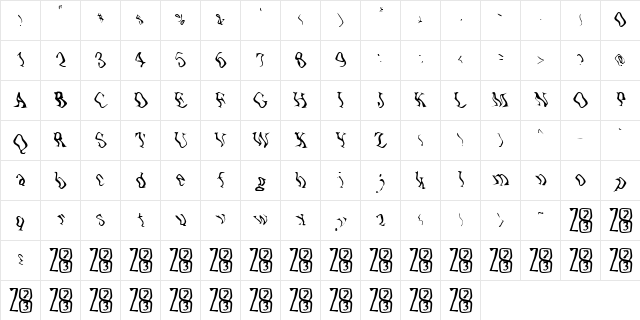
Zone23_UnderWater Normal
Design Context for Zone23_UnderWater Typeface
Zone23_UnderWater is a composed and adaptable typeface that performs quietly and consistently across a wide range of design contexts.
Pro Tip: Use Zone23_UnderWater in both headline and body roles to test its range before committing to a single application.